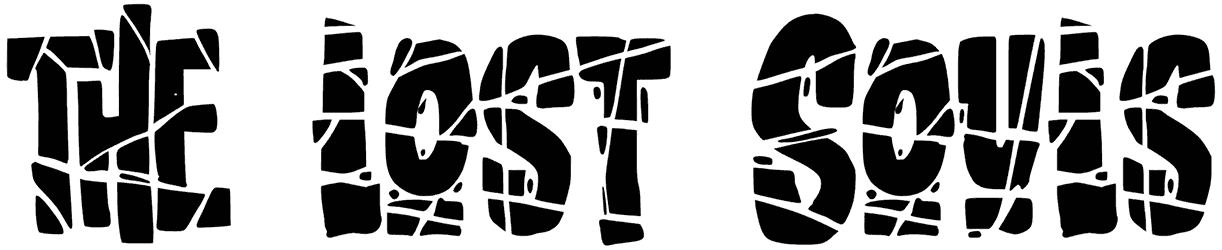
The Lost Souls Font
The Lost Souls is reminiscent of broken glass, which can look very beautiful in ancient writings, mysterious, or frightening. This decorative font is what you need to make your scripts memorable and can put you in a higher position.
Your creative projects will stand out by using this broken font and shine on the covers of books, packaging, cartoons, and computer games. Even the absence of small letters and some numbers doesn’t diminish its power to make you stand out.